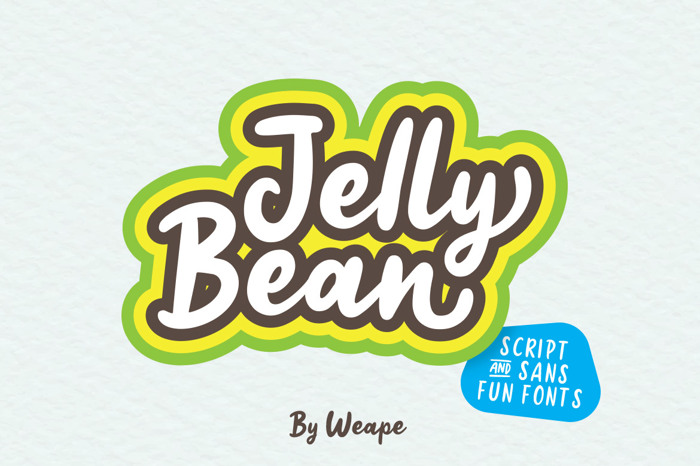
Jelly Bean Script Font
Introducing Jelly Bean Script Fun Font, a new hand-lettered with the style of the fun bounce script and tall uppercase. Which is you can combine the two font styles to create a cute and fresh design.